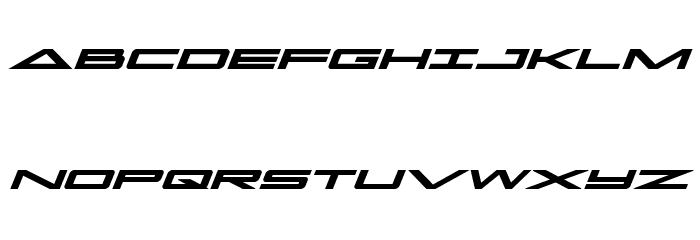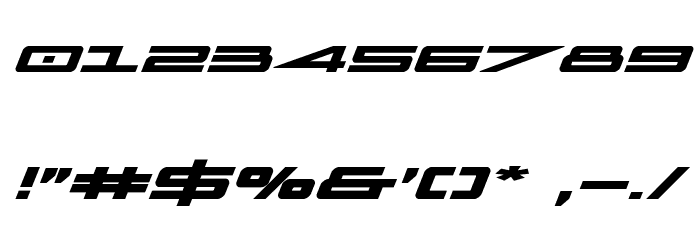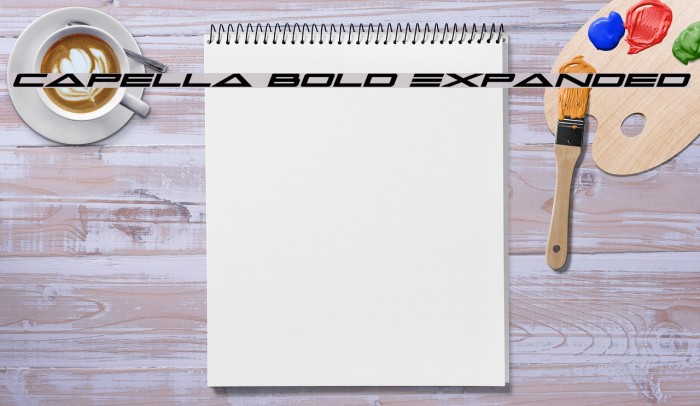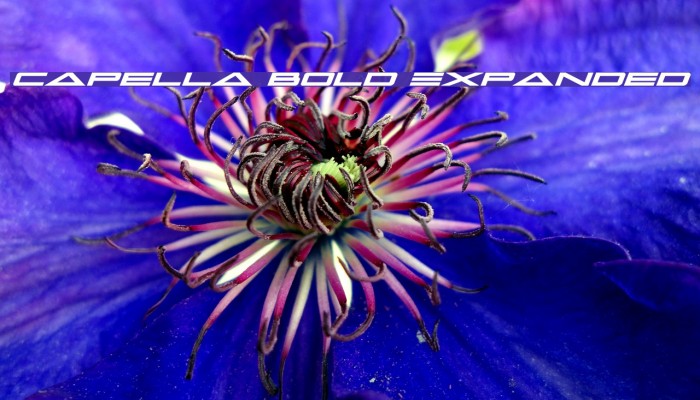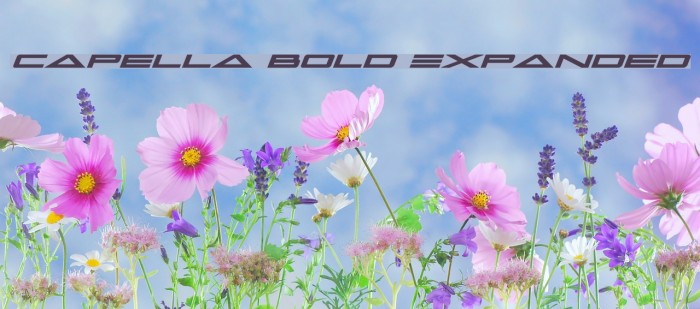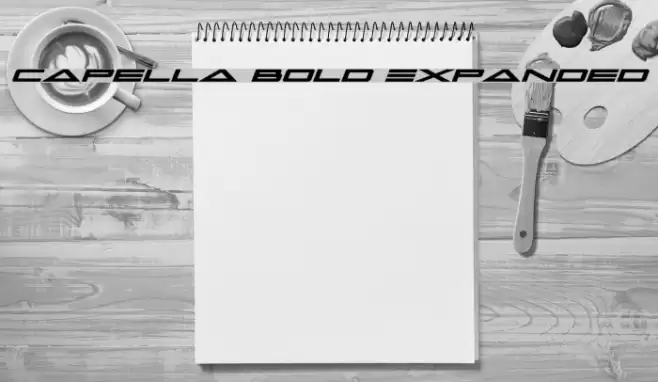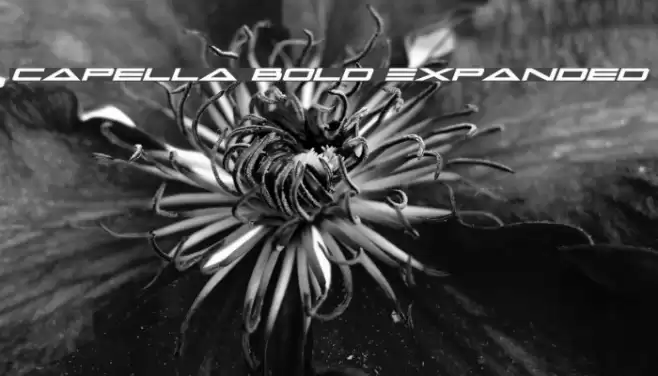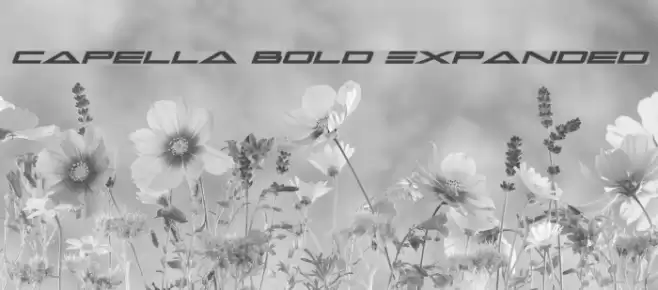
Capella Bold Expanded Font
This font features a bold and expanded style with a futuristic and dynamic appearance. The characters are sharply angled and have a sleek, aerodynamic look, making them ideal for modern and tech-oriented designs. The uppercase letters are particularly striking, with a sense of motion and speed. The numbers and special characters maintain the same bold and expanded characteristics, ensuring consistency across all glyphs. The overall design is clean and impactful, suitable for projects that require a strong visual presence.
A bold, expanded font with a futuristic and dynamic style.
- Proposed Projects: Ideal for technology branding, sports team logos, automotive designs, and sci-fi themed projects.